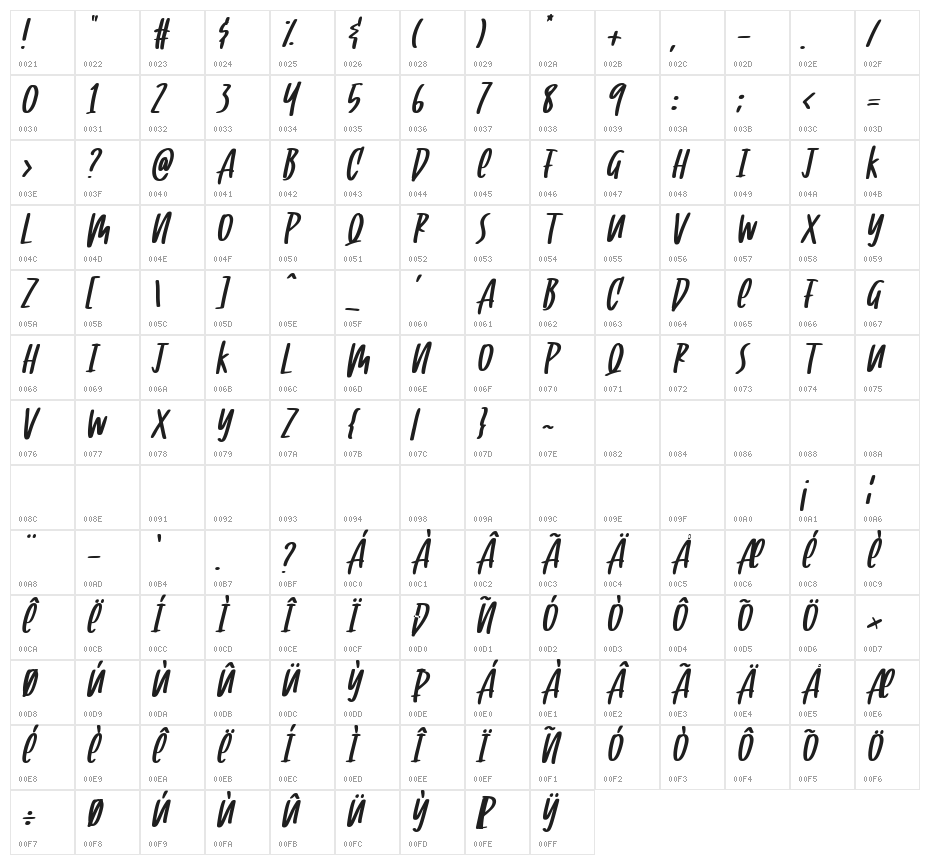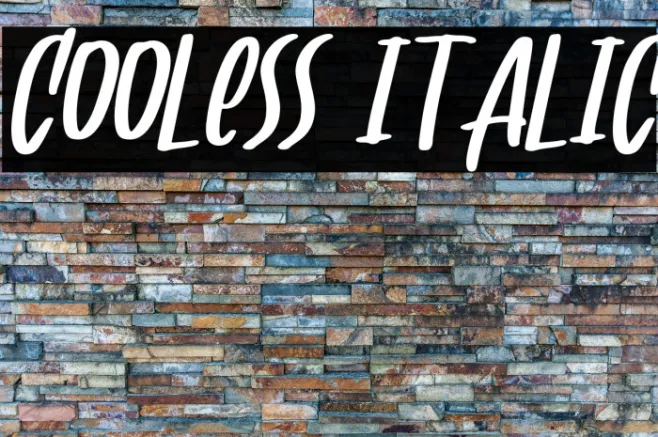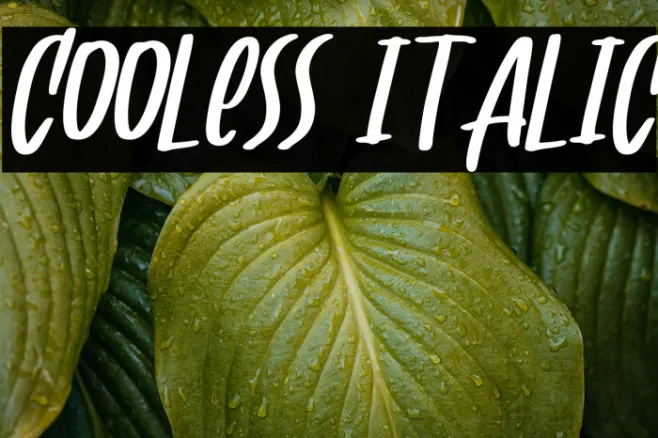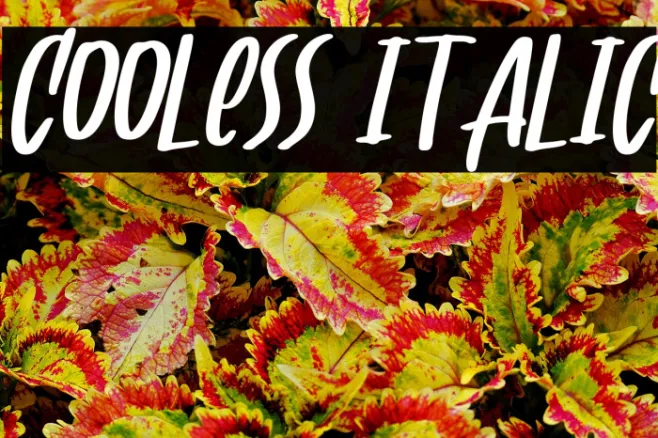
Cooless italic Font
Cooless italic Description
This font features a bold and dynamic handwritten style, characterized by its fluid and energetic strokes. The letters are slightly slanted, giving it an italic appearance that enhances its casual and lively feel. The uppercase and lowercase letters maintain a consistent style, with rounded edges and a playful, informal look. Numbers and special characters are designed to match the overall aesthetic, making it versatile for various uses. The font's thick strokes and smooth curves create a strong visual impact, ideal for projects that require a personal and approachable touch.
| Proposed Projects | Ideal for branding, social media graphics, posters, and invitations where a personal and lively touch is desired. |